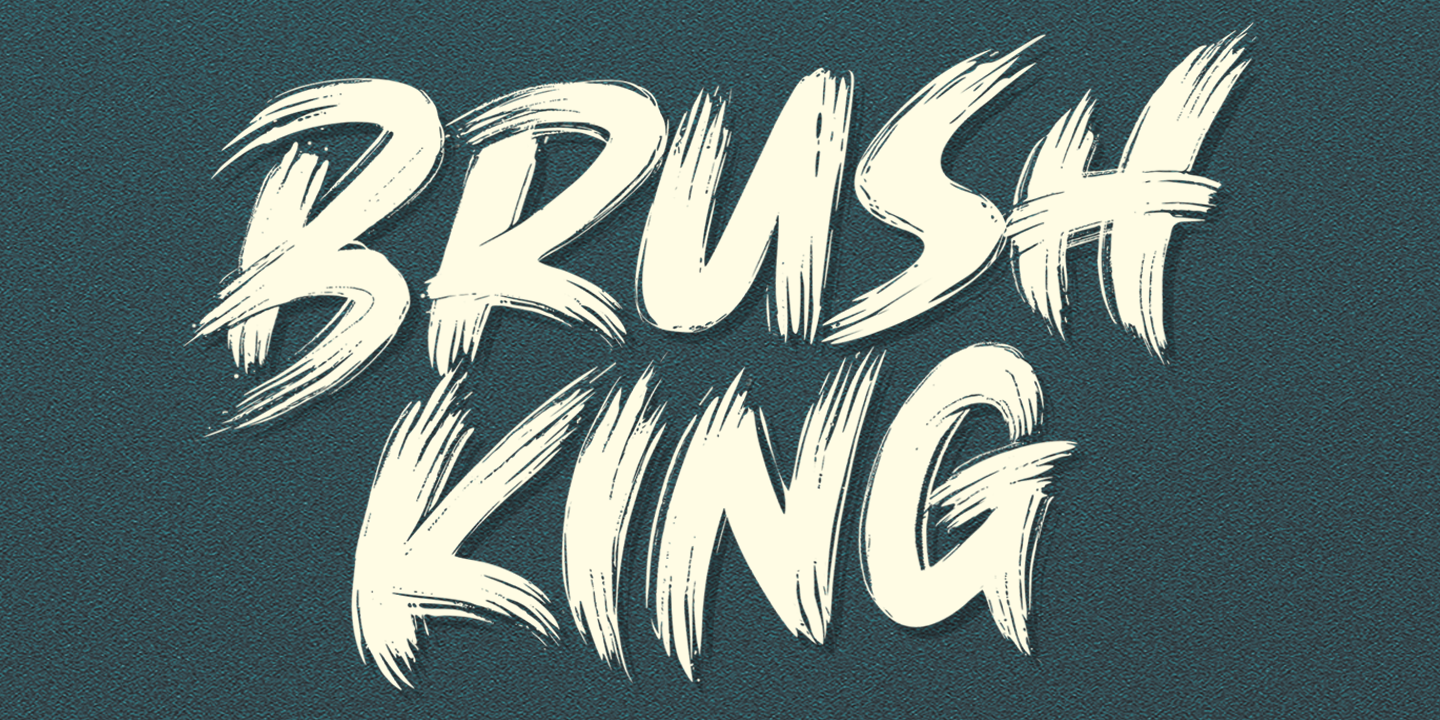
The Brush King Font is perfect for street art murals, graffiti-style designs, urban fashion branding, hip-hop album covers, energetic poster designs, bold logo creations, artistic merchandise, creative workshop materials, expressive social media graphics, and dynamic advertising campaigns.
What makes the Brush King Font exciting is its raw artistic power and expressive energy that perfectly captures the bold spirit of street art and creative rebellion. This commanding typeface features dynamic brush strokes, organic textures, and spontaneous letterforms that convey passion, creativity, and artistic freedom. Each character appears painted with confident brush movements, creating an authentic handcrafted aesthetic that radiates creative energy and urban authenticity.
The Brush King Font family includes regular, bold, condensed, and textured versions, along with paint splatter effects, artistic flourishes, and street art-inspired elements that amplify its creative impact across various artistic applications.
Whether you're designing for creative brands or developing artistic marketing materials, Brush King Font Free Download delivers maximum visual impact and authentic artistic character. Its boldly crafted brush letterforms ensure strong readability while maintaining that essential handpainted quality that speaks to creative audiences. The font's special features include contextual alternates, paint texture variations, and artistic ligatures that automatically create natural brush stroke appearances. Street artists and creative professionals consistently choose this font for projects requiring genuine artistic expression and urban credibility. The Brush King Font transforms standard text into powerful artistic statements, making it an essential tool for any designer's expressive typography arsenal.